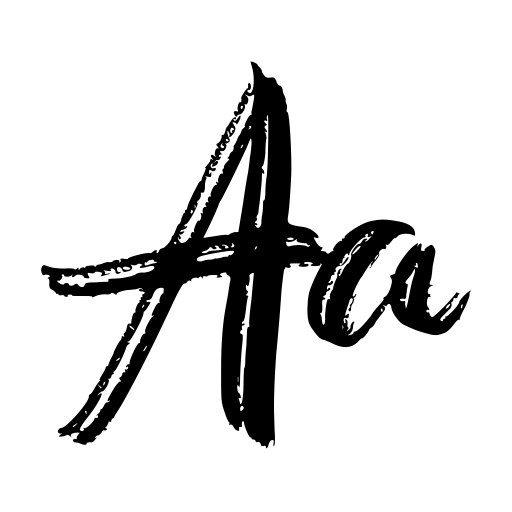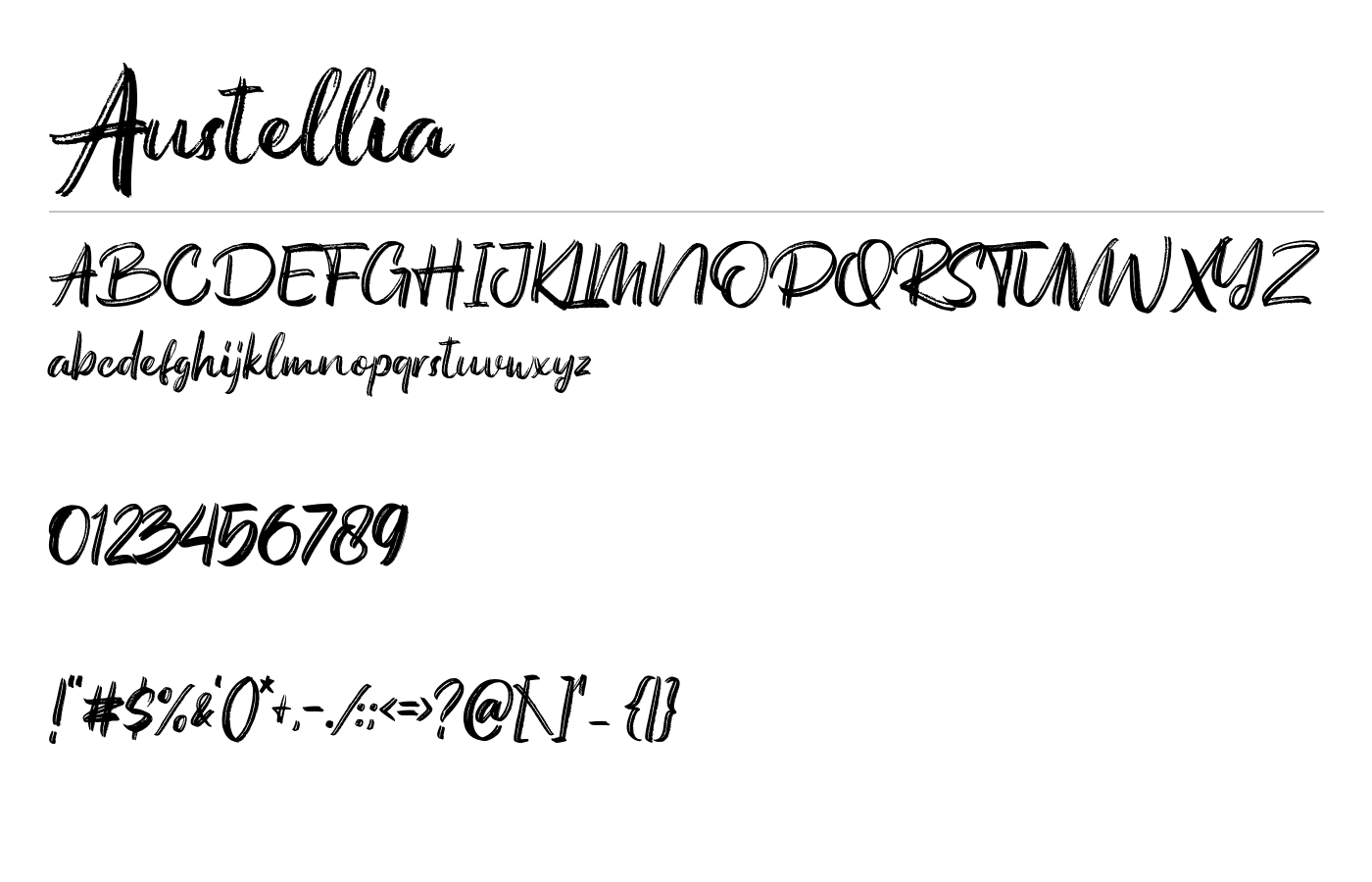
Austellia is a lively and bold handwritten script font characterized by its energetic brush strokes and casual, artistic flair. Its slightly textured, irregular lines and tall, narrow letterforms create a dynamic and personal feel, making it perfect for creative projects, branding, and display uses that want to convey warmth and individuality. This font works well in logos, posters, and social media graphics where a stylish, hand-crafted look is desired.
Austellia Font
About Austellia Font